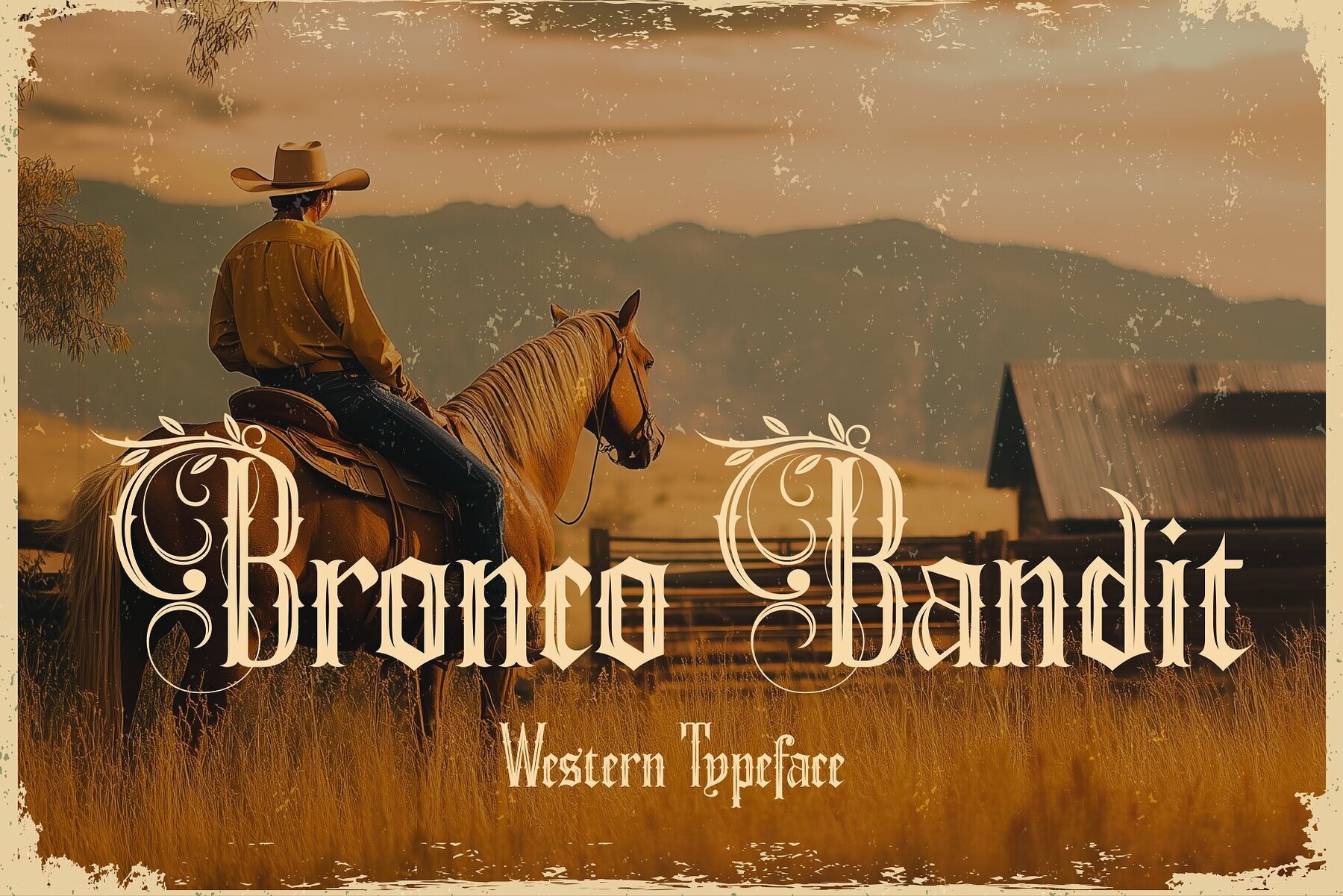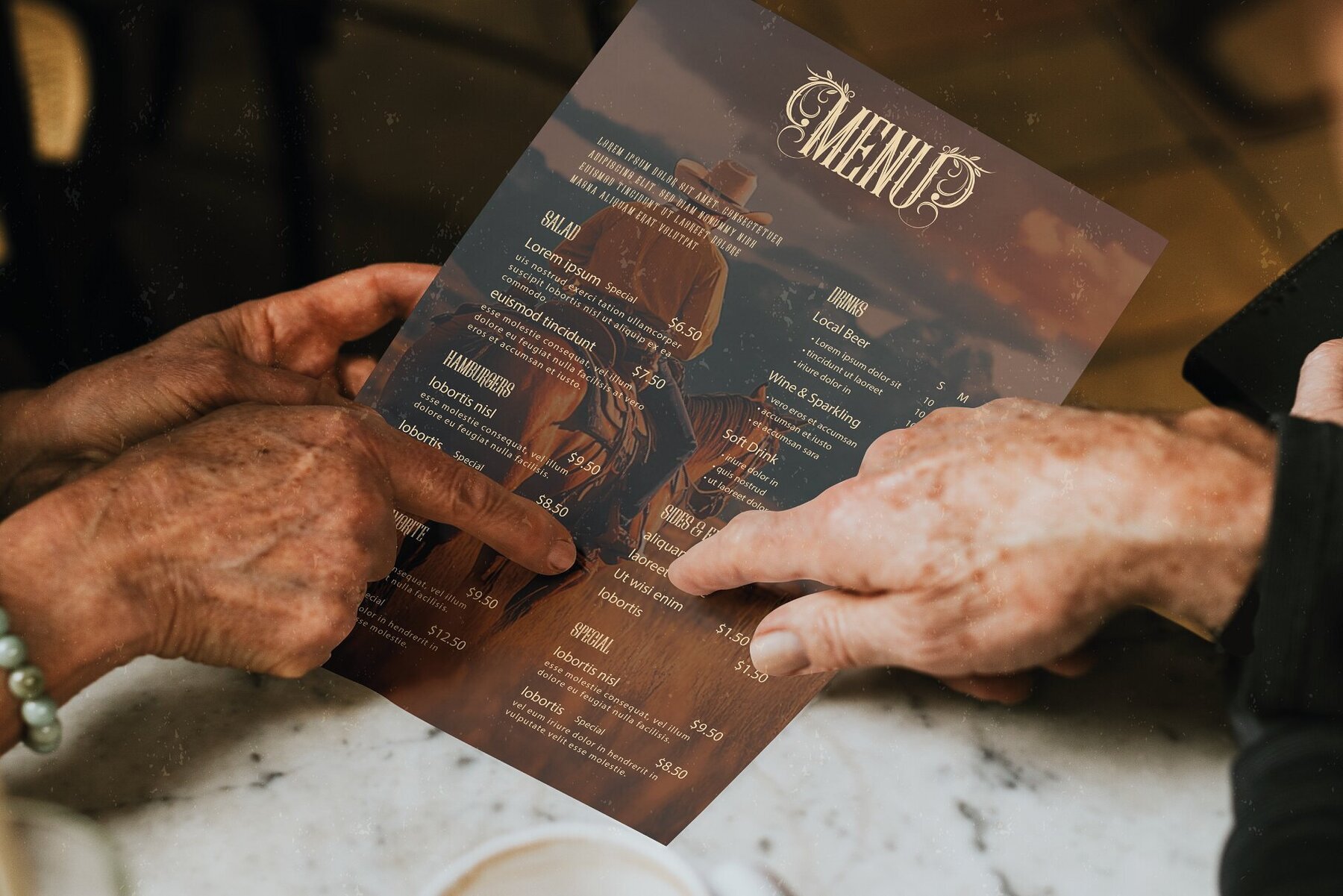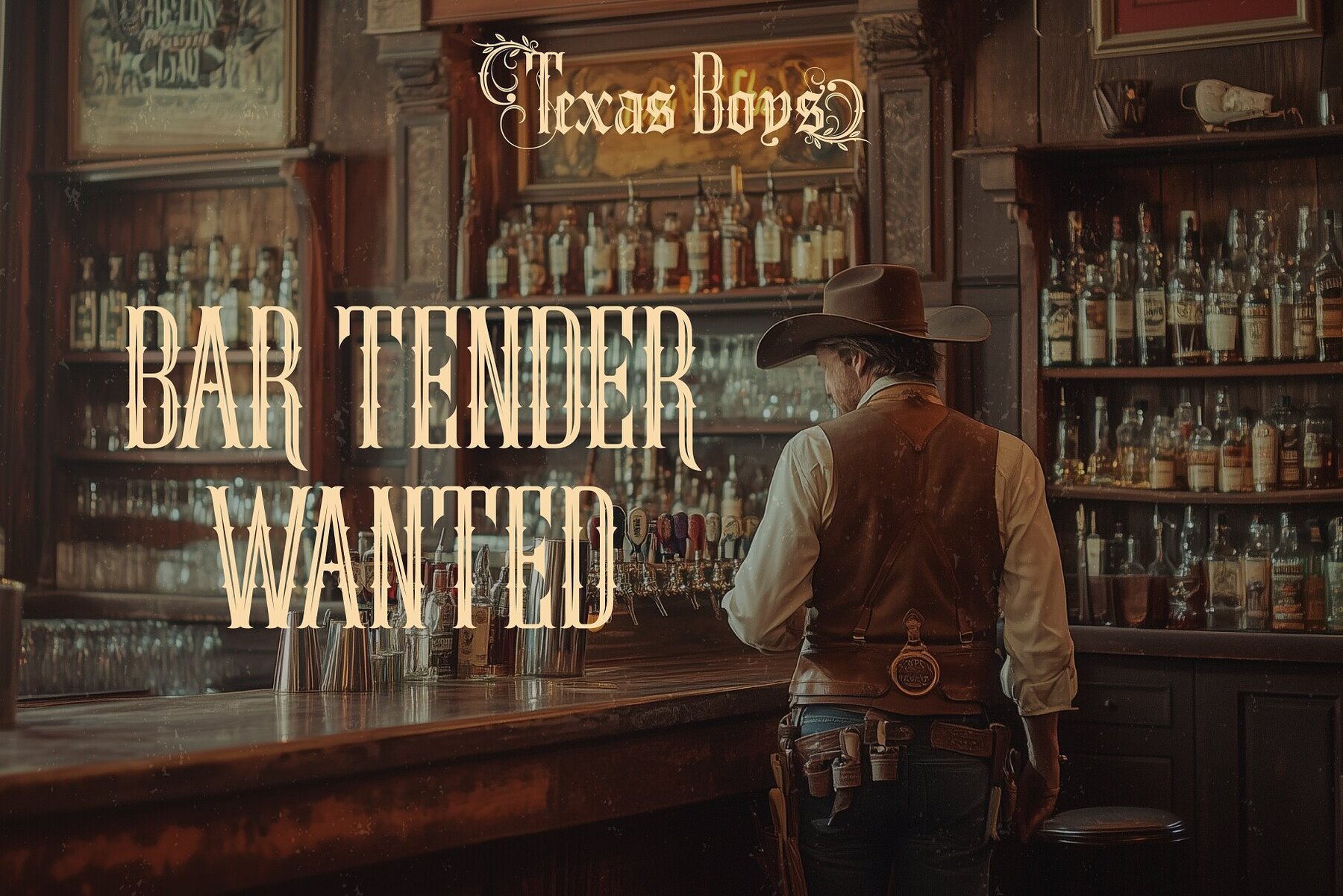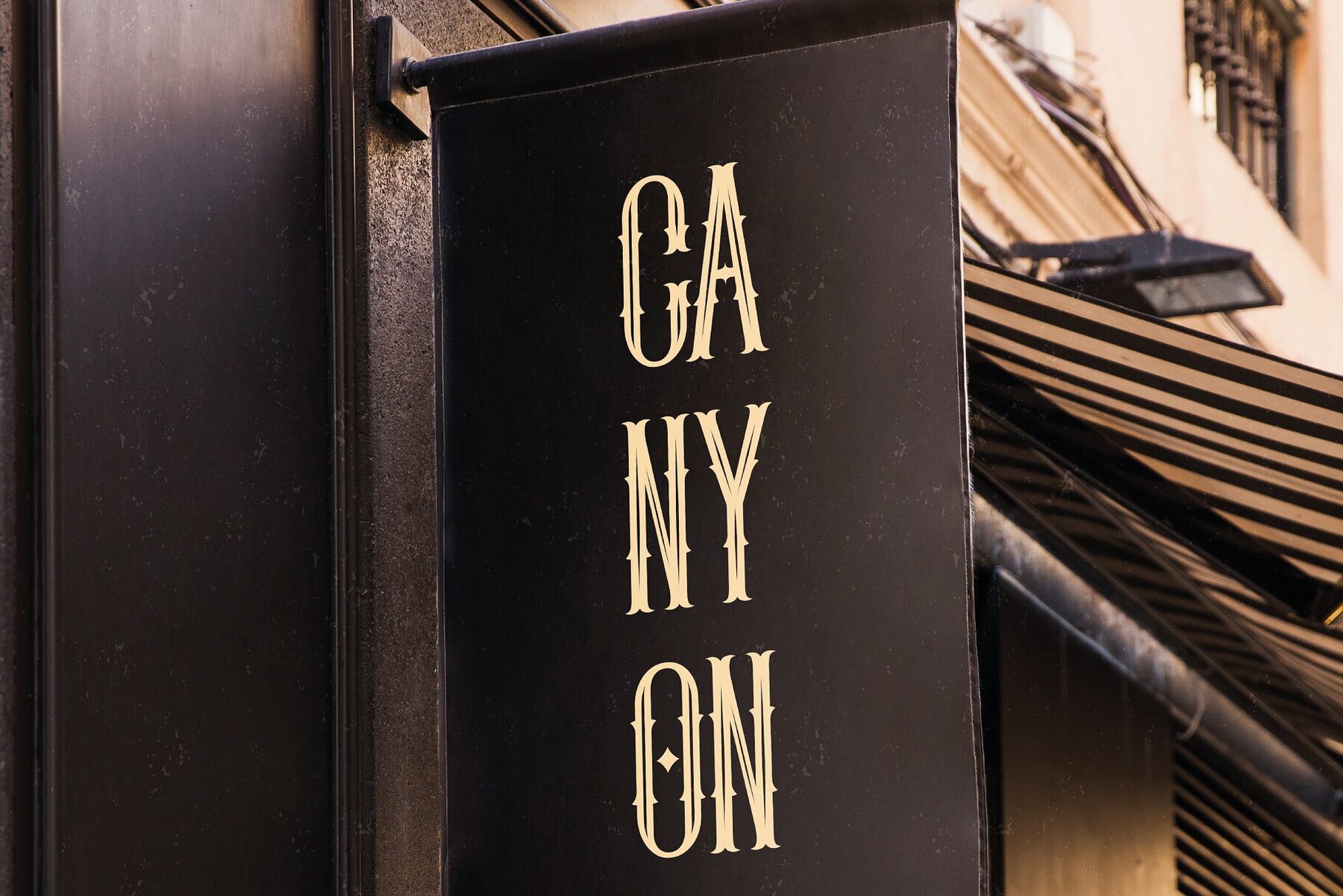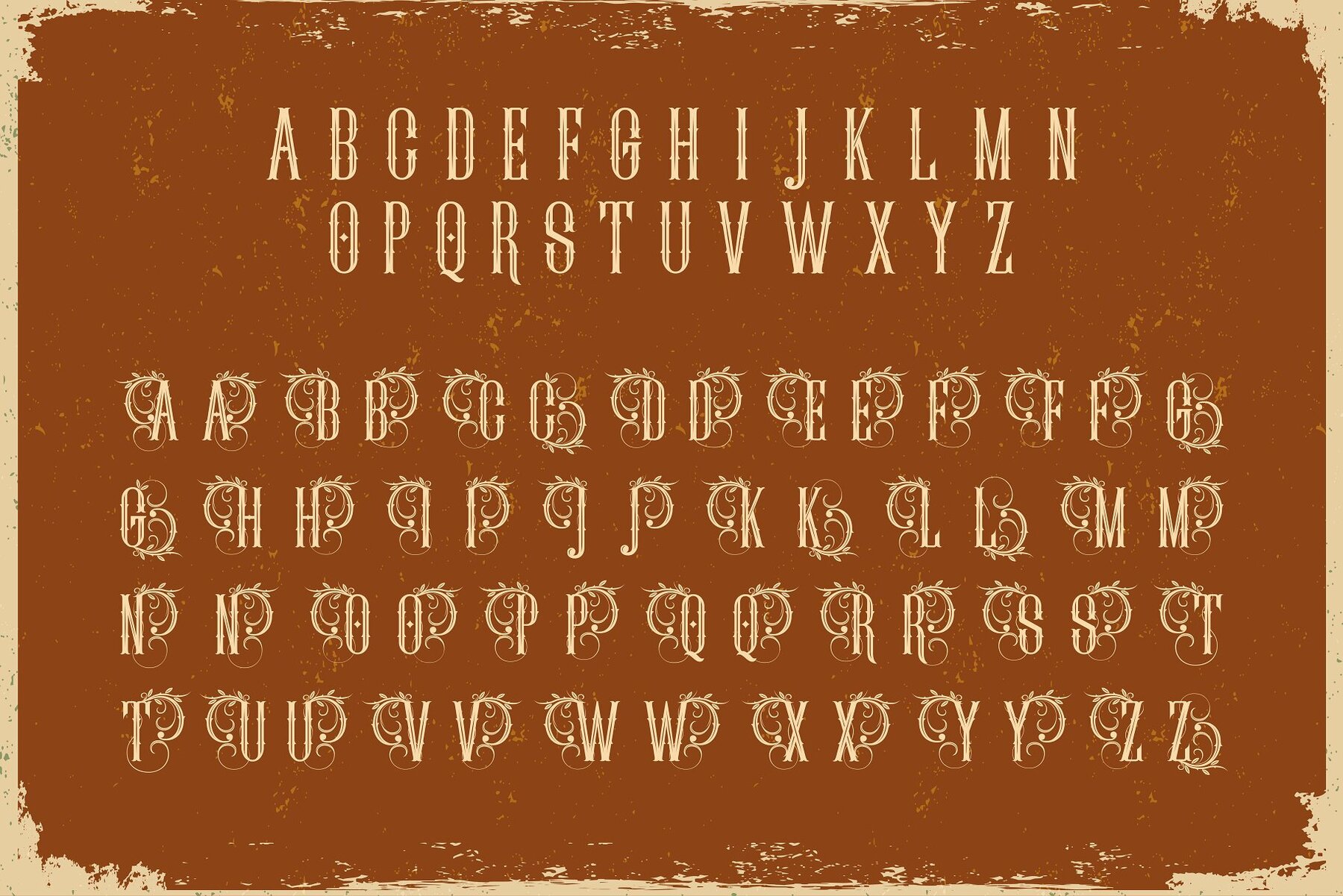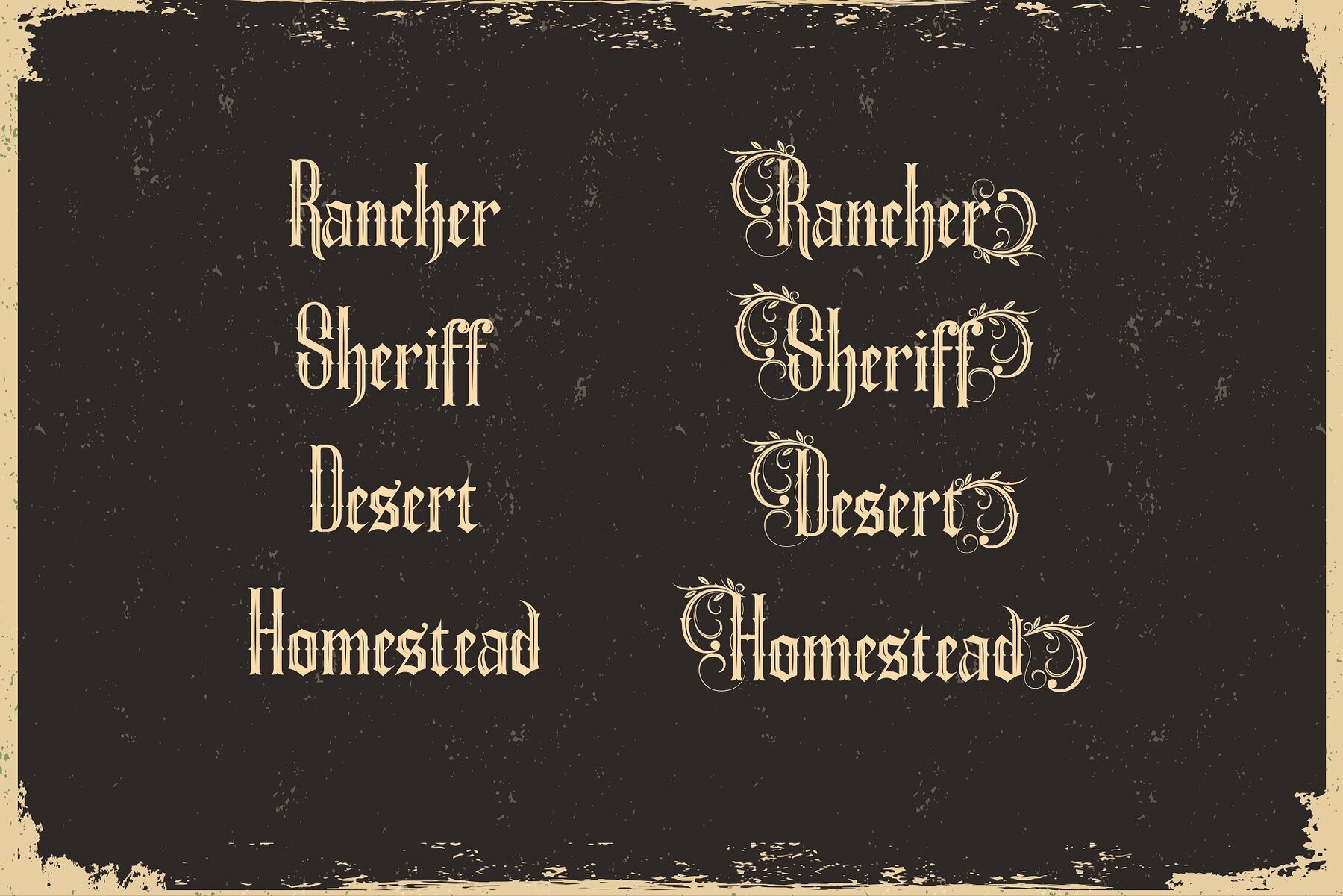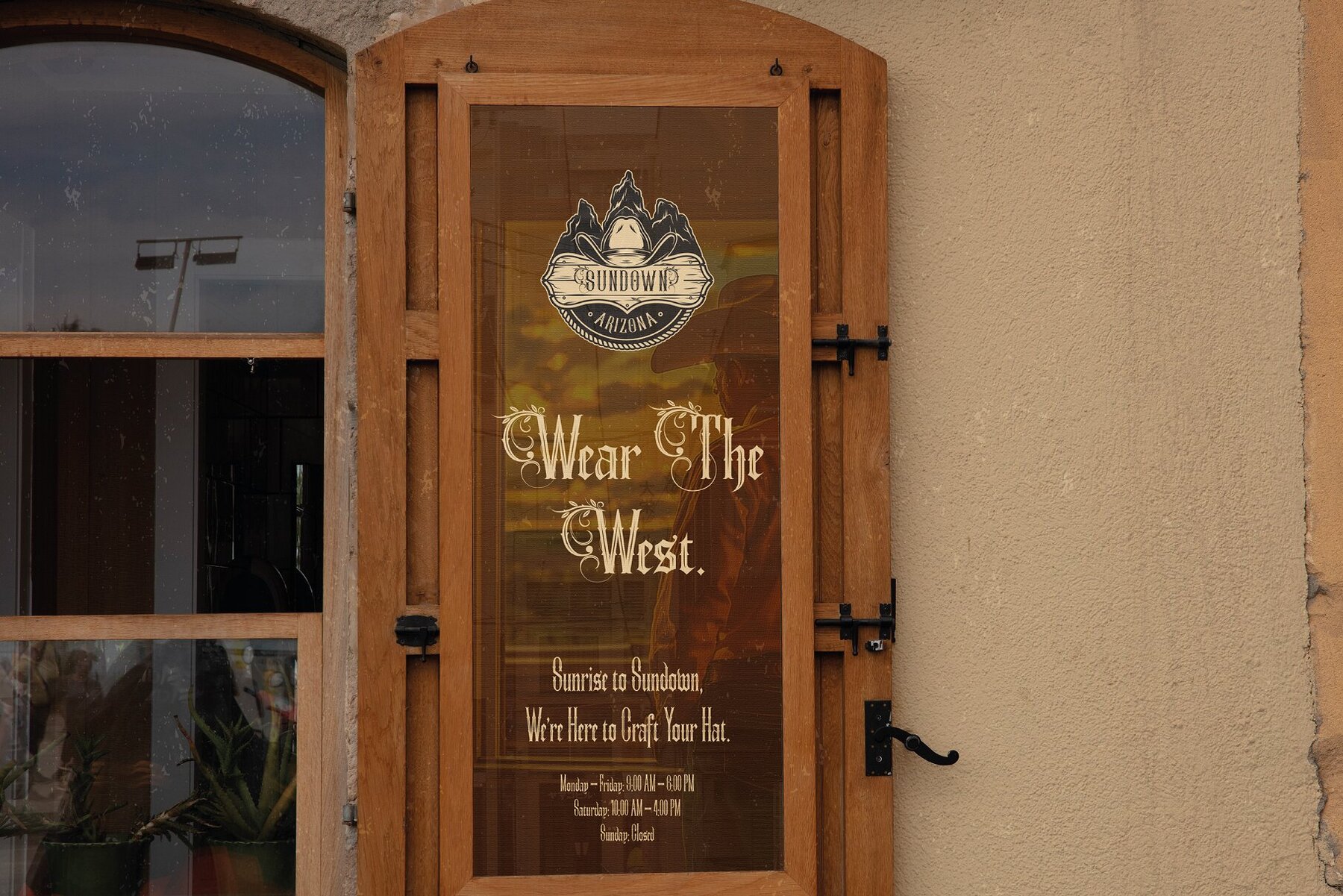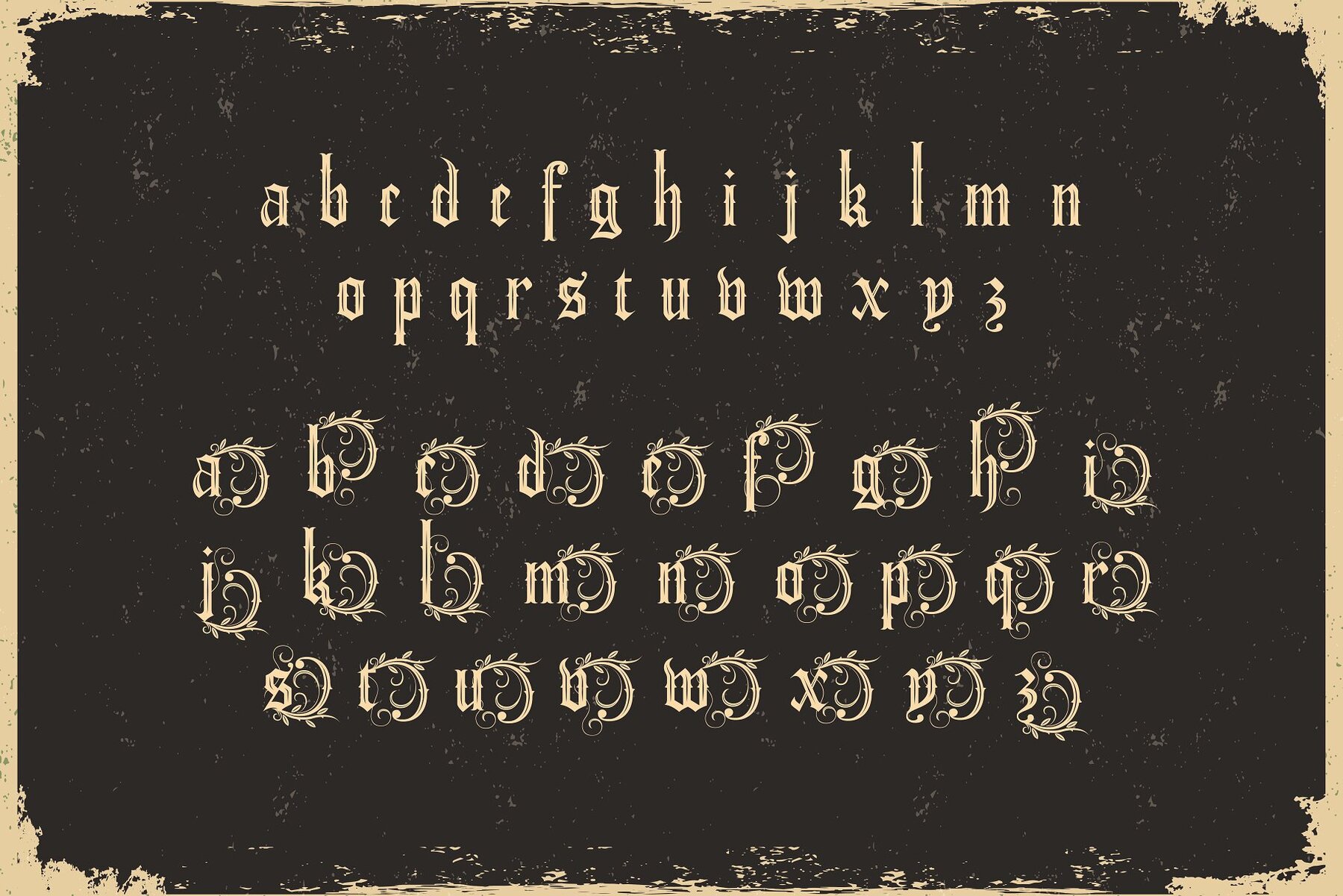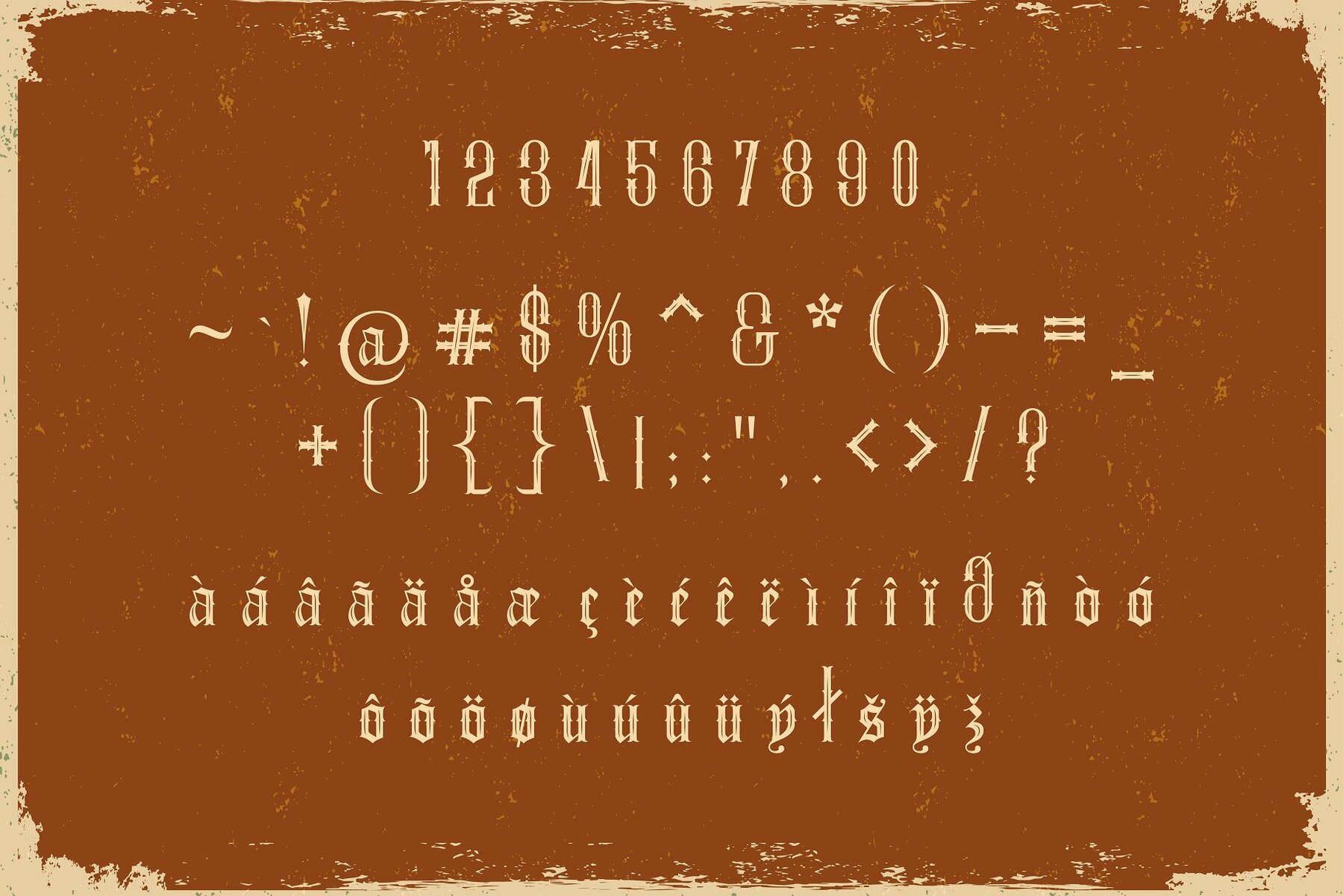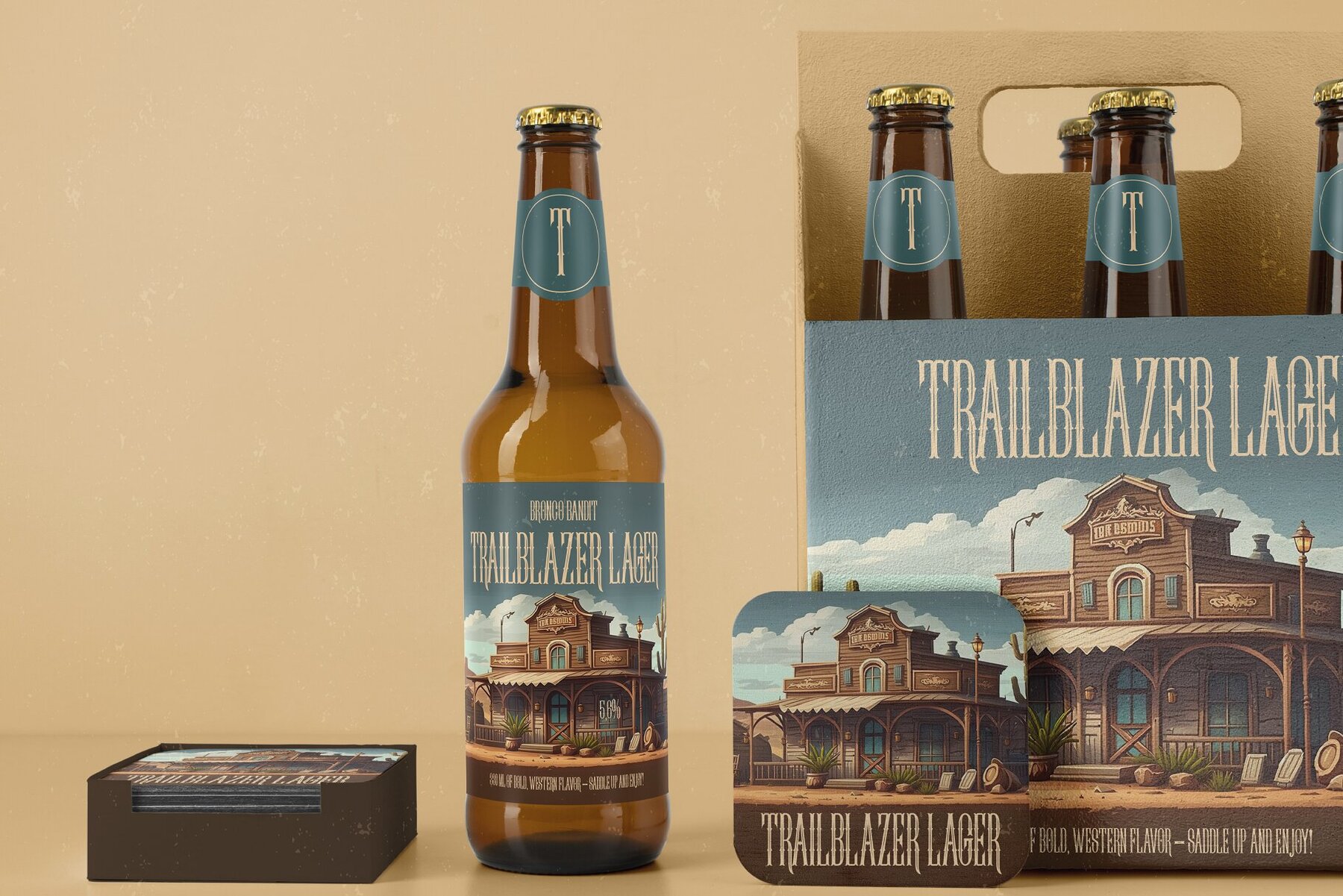
Bronco Bandit Font
Bronco Bandit Regular
Bronco Bandit is a bold serif typeface that draws inspiration from the wild west, capturing the rugged charm of cowboys, saloons, and the untamed frontier. Its sharp edges and timeless design embody a spirit of adventure and rebellion, making it perfect for designs needing a touch of western flair.
Ideal for logos, headlines, and promotional materials, Bronco Bandit's unforgettable style and strong personality ensure your work stands out. Infuse your projects with the grit and glory of the old west, and let this typeface make a lasting impact.